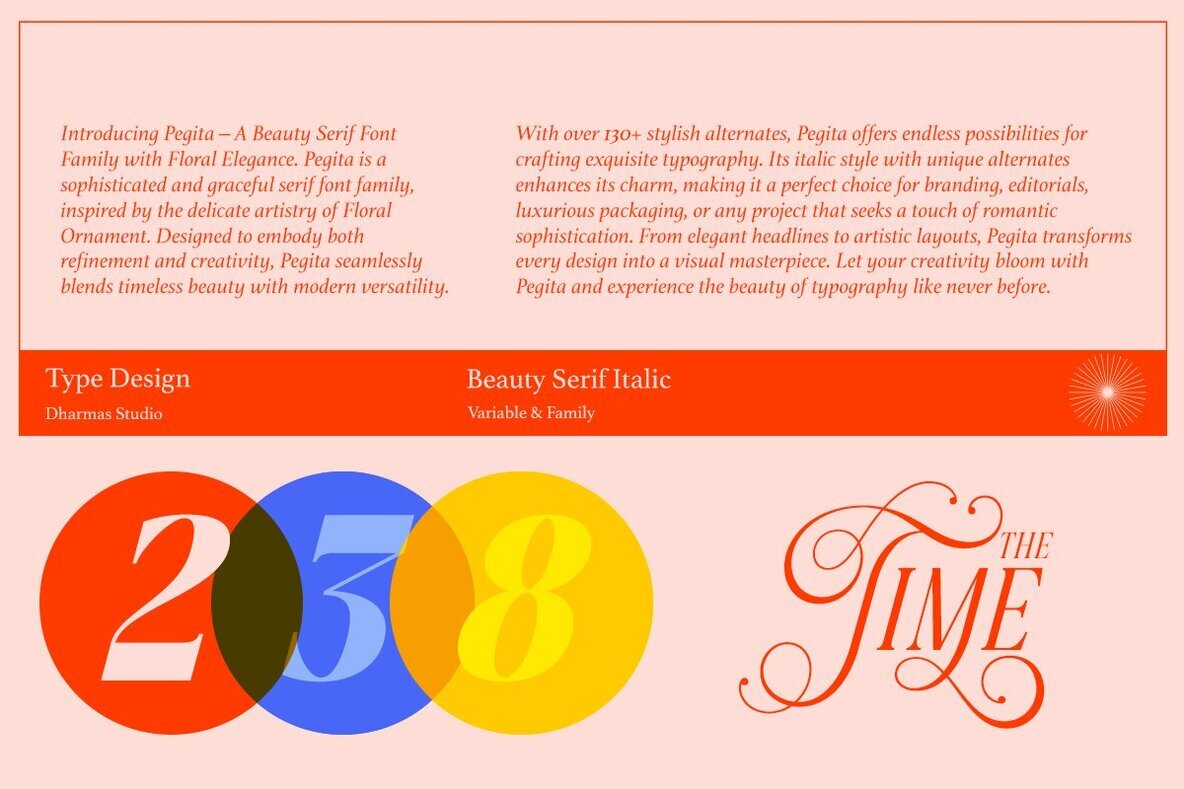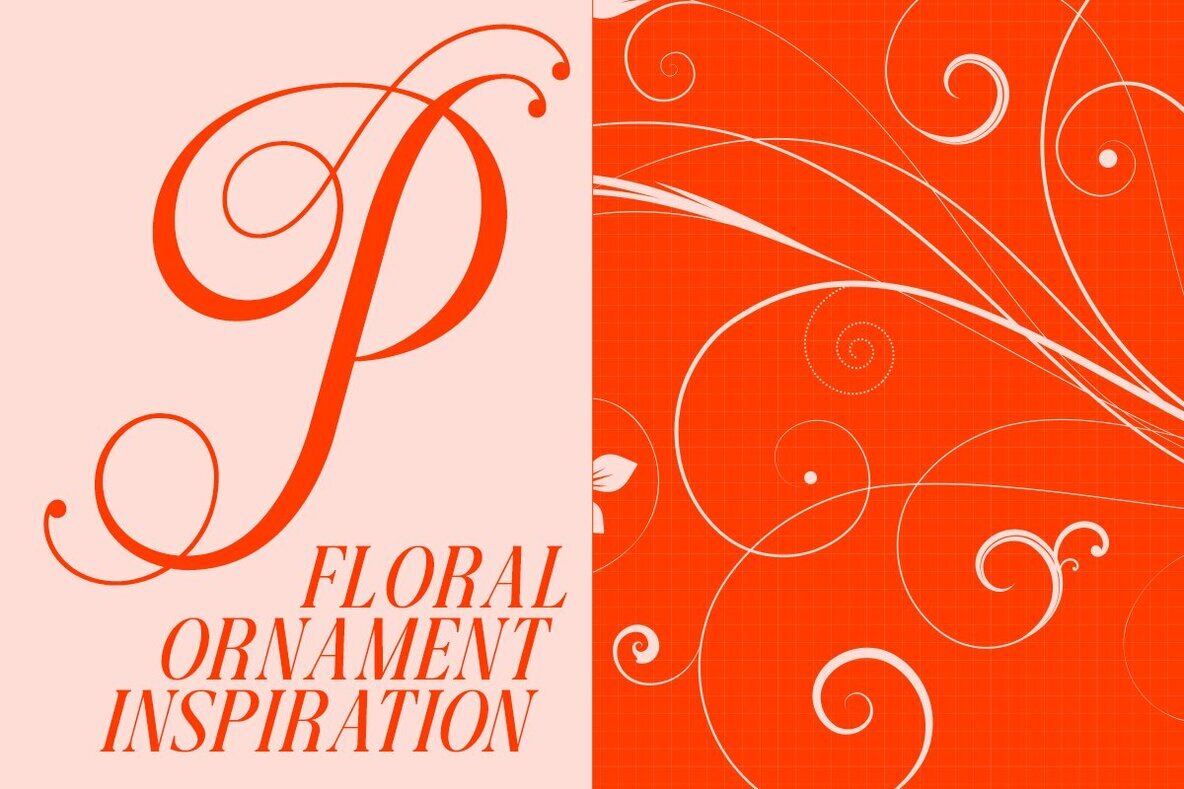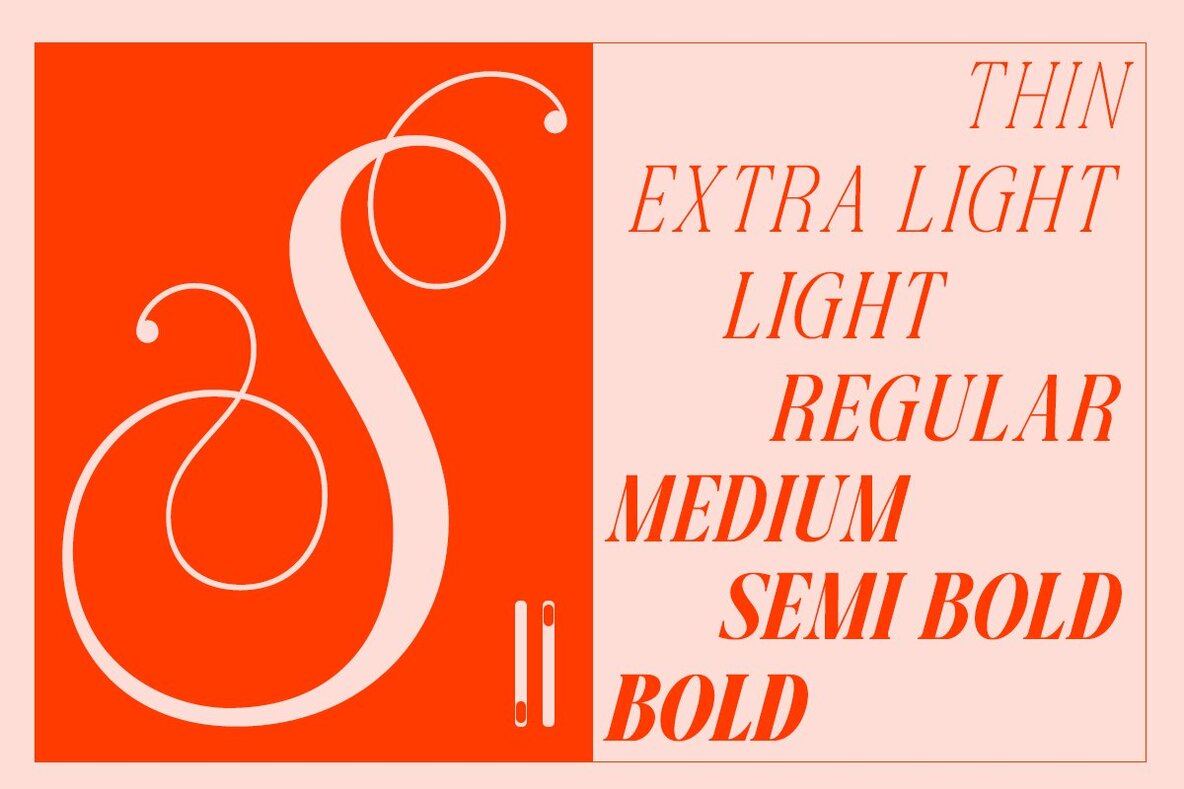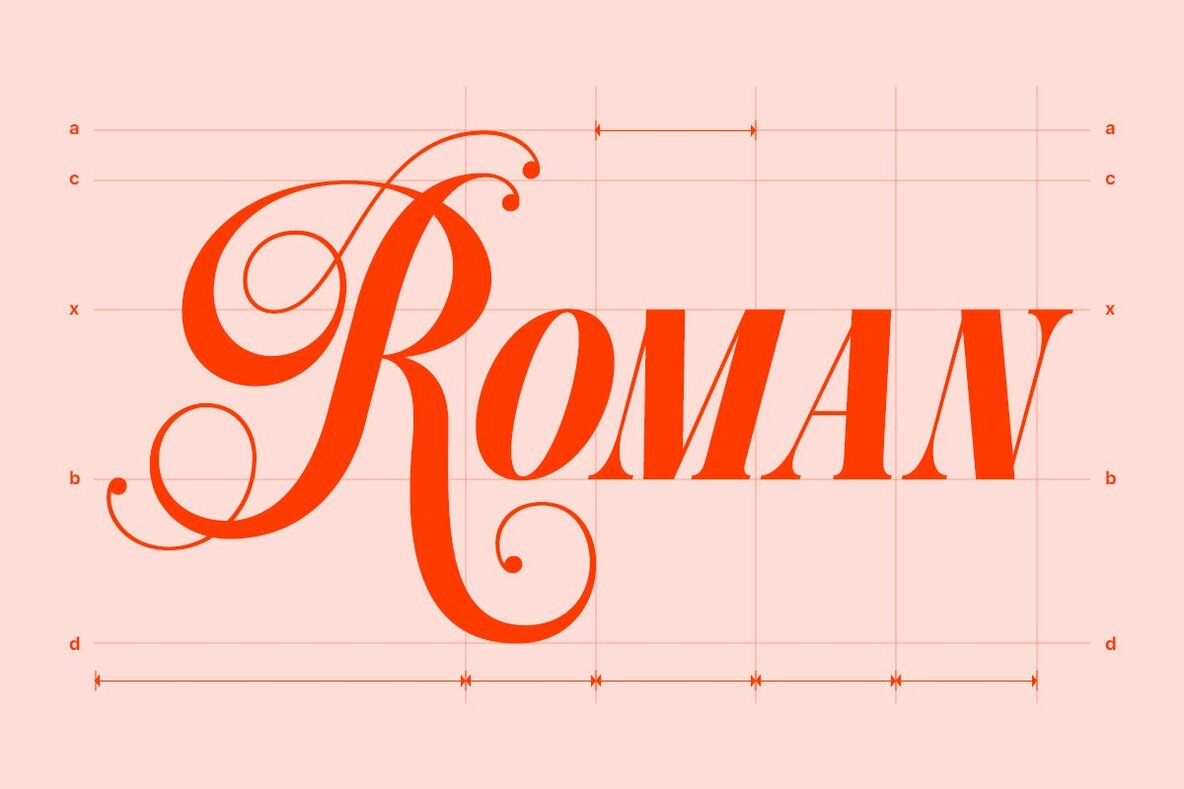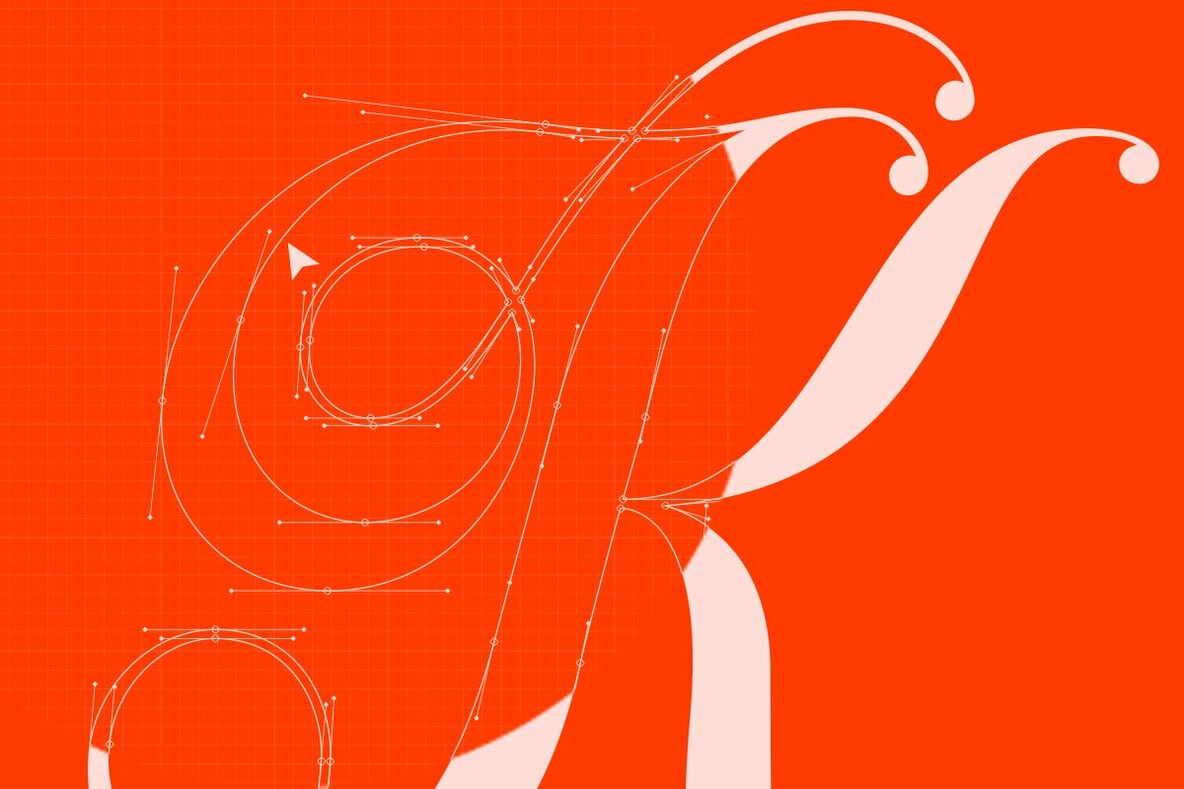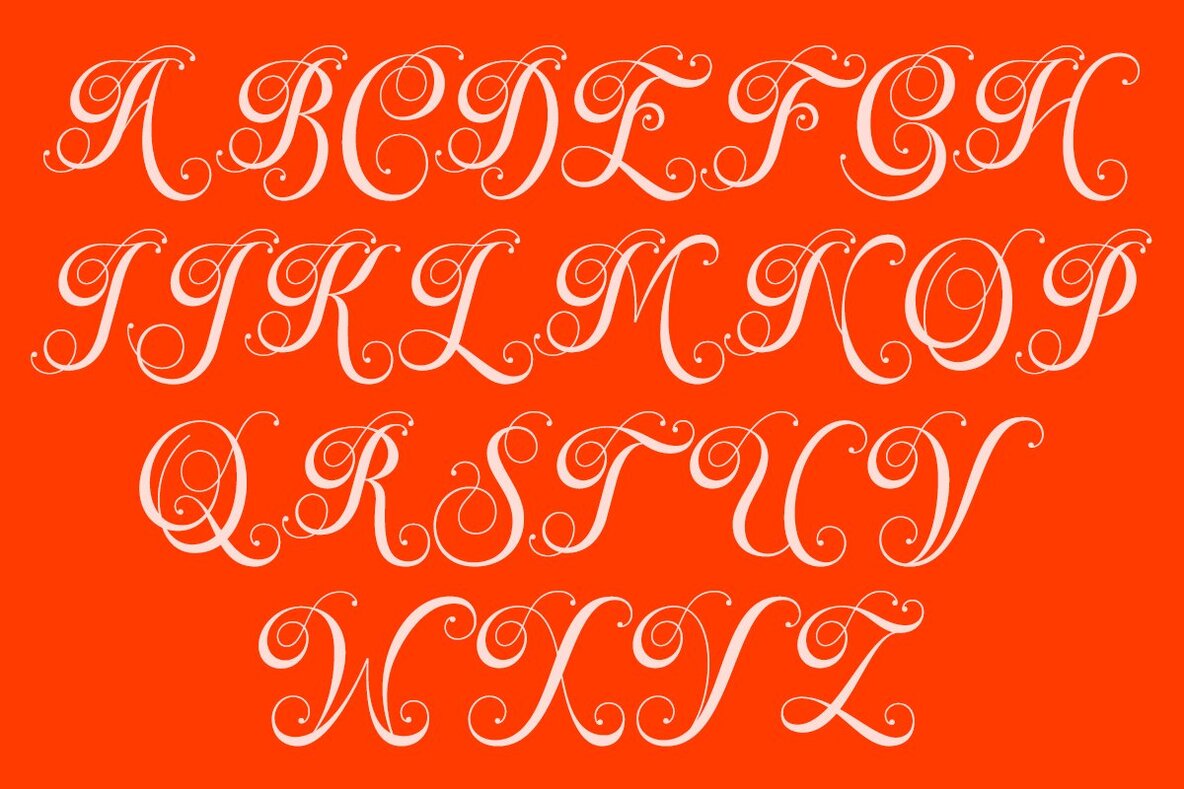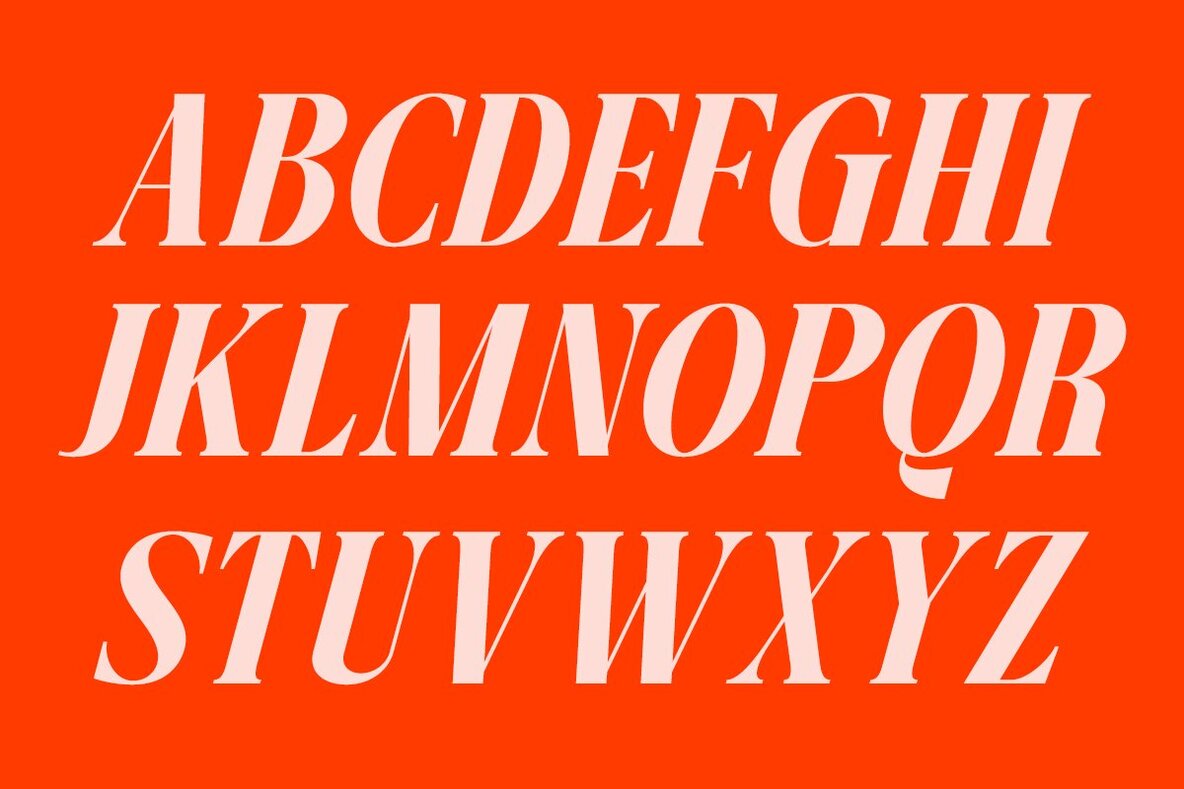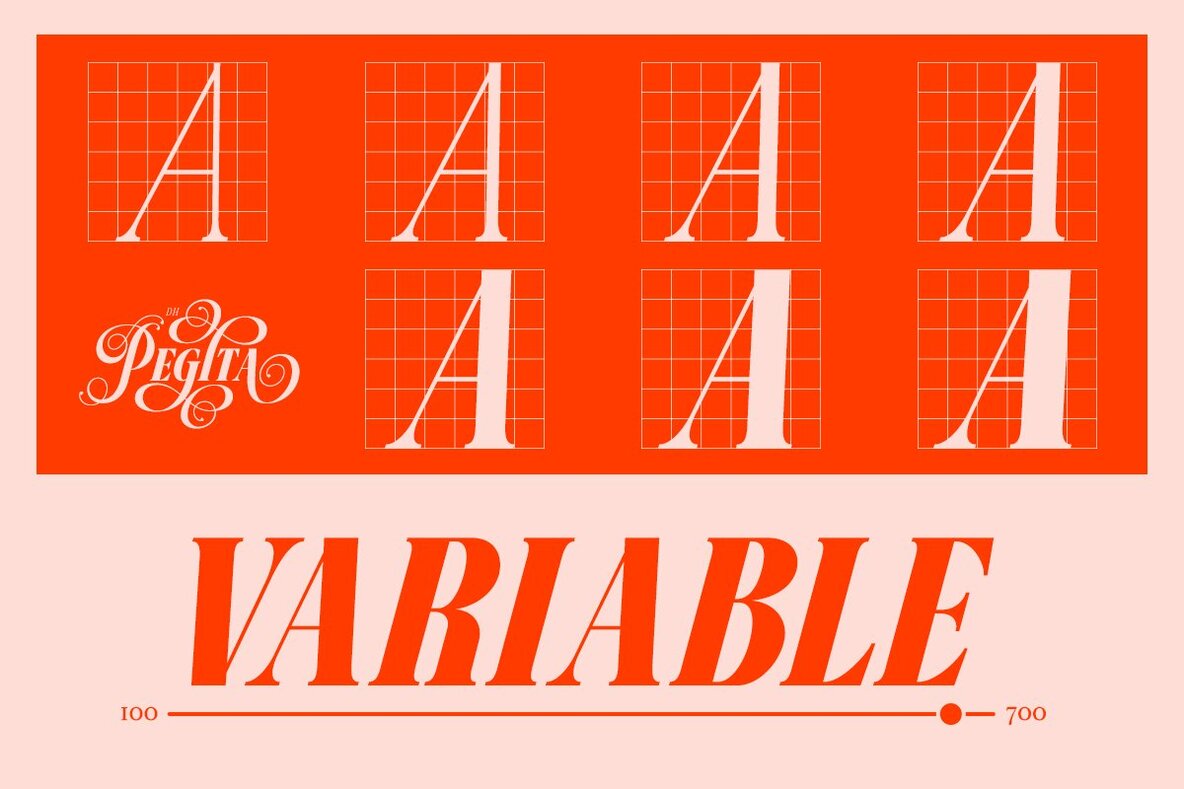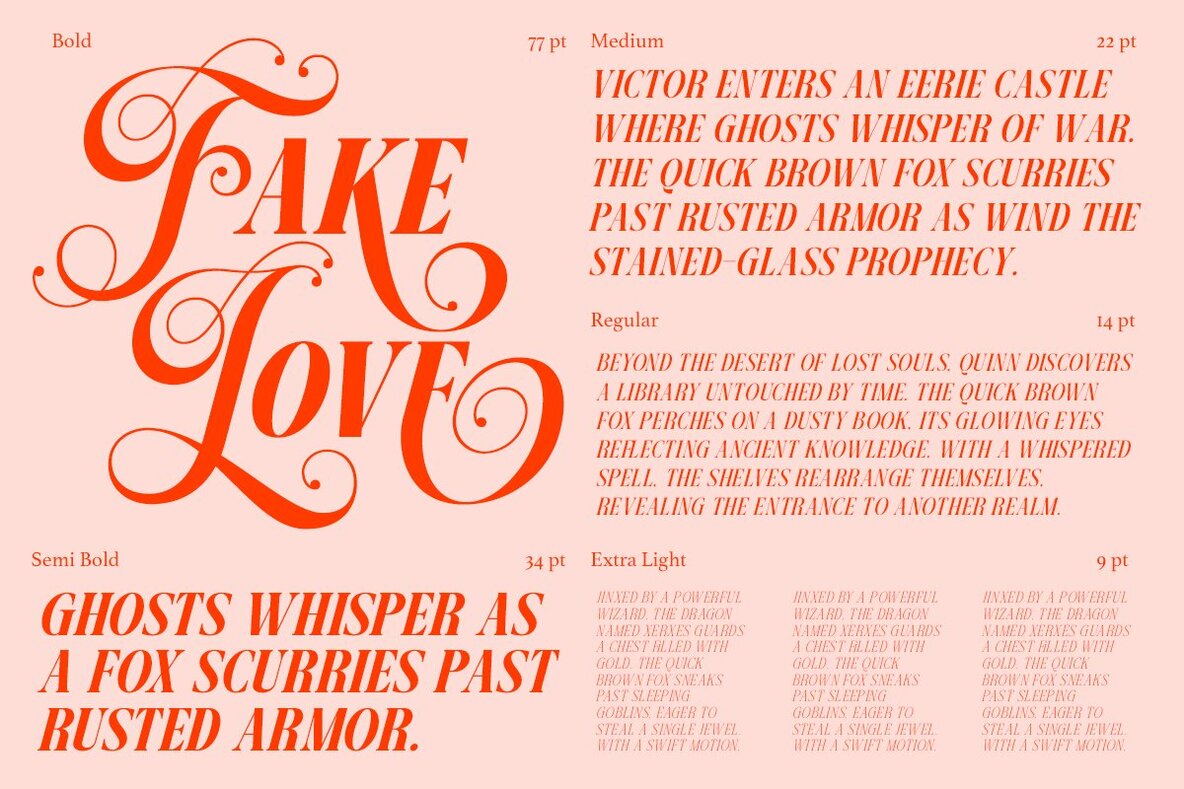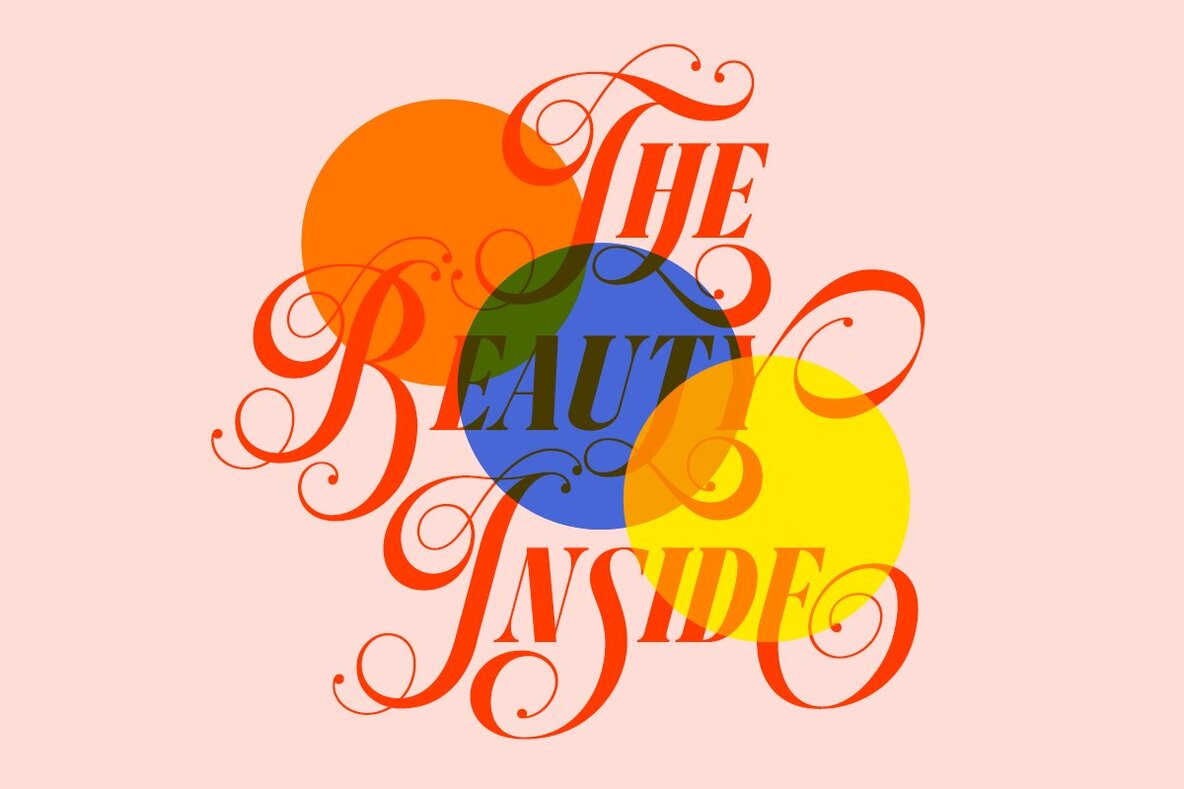
Dh Pegita Font
Dh Pegita is a refined serif display font inspired by the delicate beauty of floral ornaments. Designed for both sophistication and modern charm, this typeface blends classic aesthetics with contemporary versatility, making it perfect for high-end design projects. With 7 weights (Thin, Extra Light, Light, Regular, Medium, Semi Bold, Bold), Dh Pegita adapts effortlessly to various design needs. Whether for branding, editorial layouts, or event invitations, its elegant curves and fine details ensure a stunning visual impact. Dh Pegita Font Features: